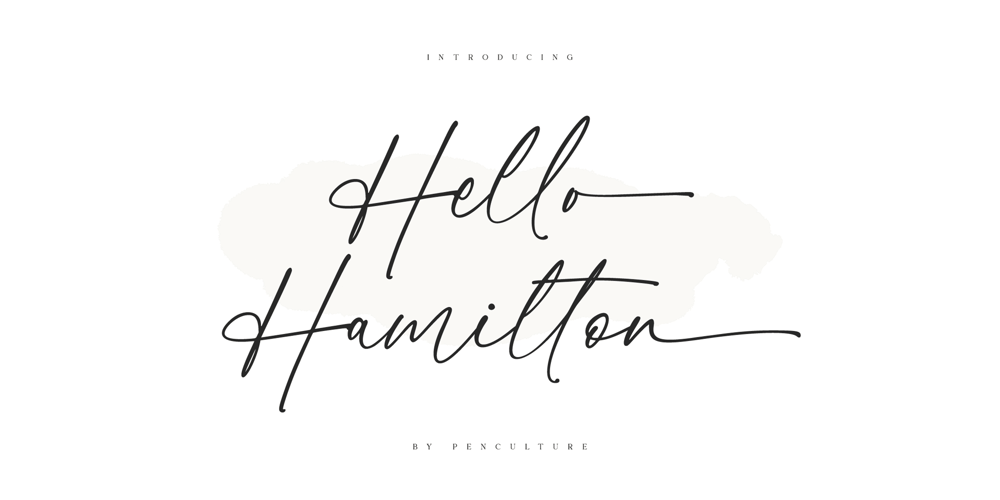
Hello Hamilton Font Family was designed by Revo Farsiky and published by Pen Culture. Hello Hamilton contains 1 styles and family package options. Proudly Present The New “Hamilton // Classy Calligraphy Font”Hamilton is modern classy calligraphy font, this font come with beautiful ligature and lovely alternate. Hamilton has a very beautiful stroke and will be very suitable if applied to wedding projects, invitations, fashion, and much more.Feature and what will you get: Uppercase and lowercase Number and punctuation Beautiful ligature Lovely alternate PUA Encoded and multilingual support I really hope you enjoy it – please do let me know what you think, comments & likes are always hugely welcomed and appreciated. More importantly, please don’t hesitate to drop me a message if you have any issues or queries.Thank you